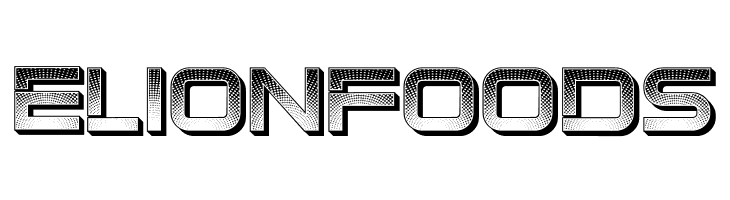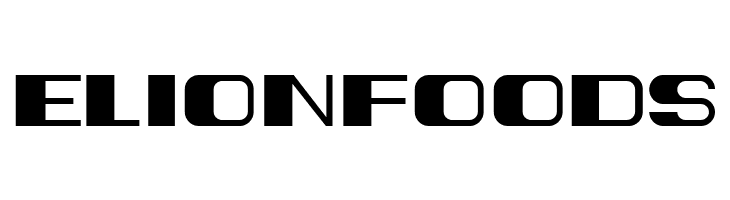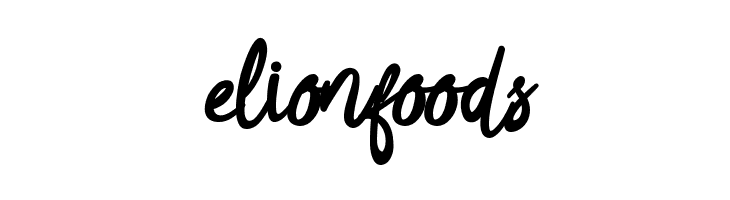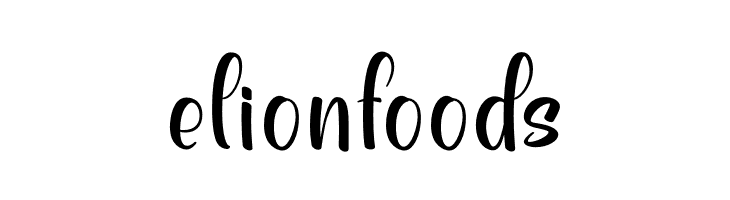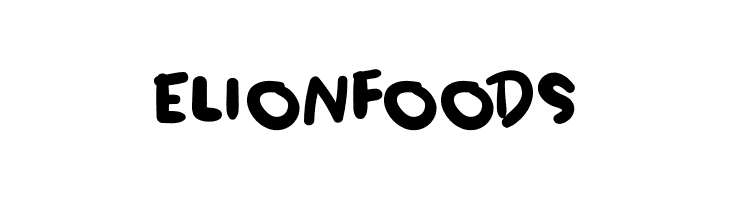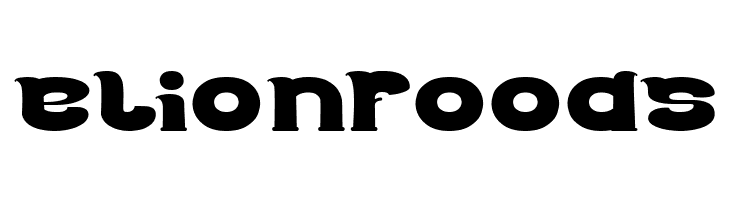
A bold, playful font with rounded, whimsical characters.
A playful, bold font with rounded, whimsical characters.
A bold, handwritten font with a lively and energetic style.
A bold, playful font with rounded edges and a modern-retro style.
Playful handwritten font with a casual style.
A bold, dynamic brush-style font with textured strokes.
A bold, playful font with rounded edges and a hand-drawn style.
A bold, geometric font with a 3D shadow effect and textured interior.
A dynamic and fluid script font with elegant, flowing letterforms.
A bold, geometric font with a modern, futuristic style.